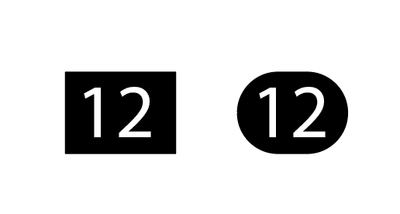
Does anyone know of any fonts that act as "bullets" ?
Basically, numbers (letters ok too) within a square or round shape, like this:
I'm not sure if there's a term for them, but haven't found any in Adobe Fonts.
Thanks for reaching out! You can try using Wingdings or Wingdings 2, as both include encircled digits.
1. Check the character map on the linked page to view and copy the encircled digits — this will help you understand how they are mapped within the font.
2. In Adobe Fonts, search for “encircled digits” to find other fonts with similar features.
3. In some fonts, these digits may be accessible through a Stylistic Set in the OpenType settings, so be sure to che
Some fonts may list the glyphs as dingbats or circled digits. I can't think of any specific fonts carried by Adobe Fonts that have those kinds of number glyphs, but there is bound to be at least some fonts in Adobe Fonts' catalog that have them.
This comes back to a couple of features I wish the Adobe Fonts site had. I'd like each font to have a glyphs table showing all the available characters. It would also be nice if each font had a list of character features. This would include things like native small capitals, different number sets (tabular lining and proportional lining figures), ligatures, alternate characters, etc. Circle and squared number sets would be another to add to that list.
One typeface I know has those kinds of circular and squared number sets: Helvetica Now. But the static and variable versions of Helvetica Now are not available thru Adobe Fonts.
Helvetica Now looks like an interesting project, too.
I just ended up making my own.
Thanks for reaching out! You can try using Wingdings or Wingdings 2, as both include encircled digits.
1. Check the character map on the linked page to view and copy the encircled digits — this will help you understand how they are mapped within the font.
2. In Adobe Fonts, search for “encircled digits” to find other fonts with similar features.
3. In some fonts, these digits may be accessible through a Stylistic Set in the OpenType settings, so be sure to check there as well.
This should help you locate and use encircled numbers for your design.